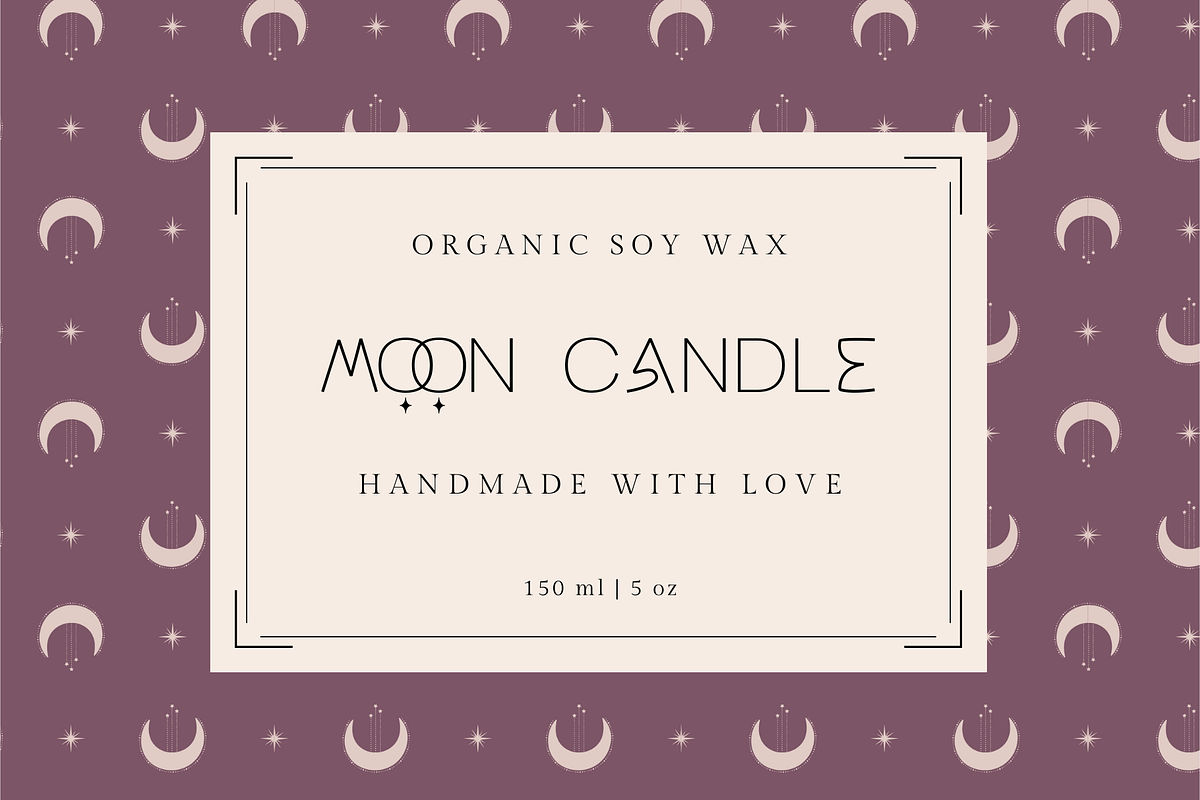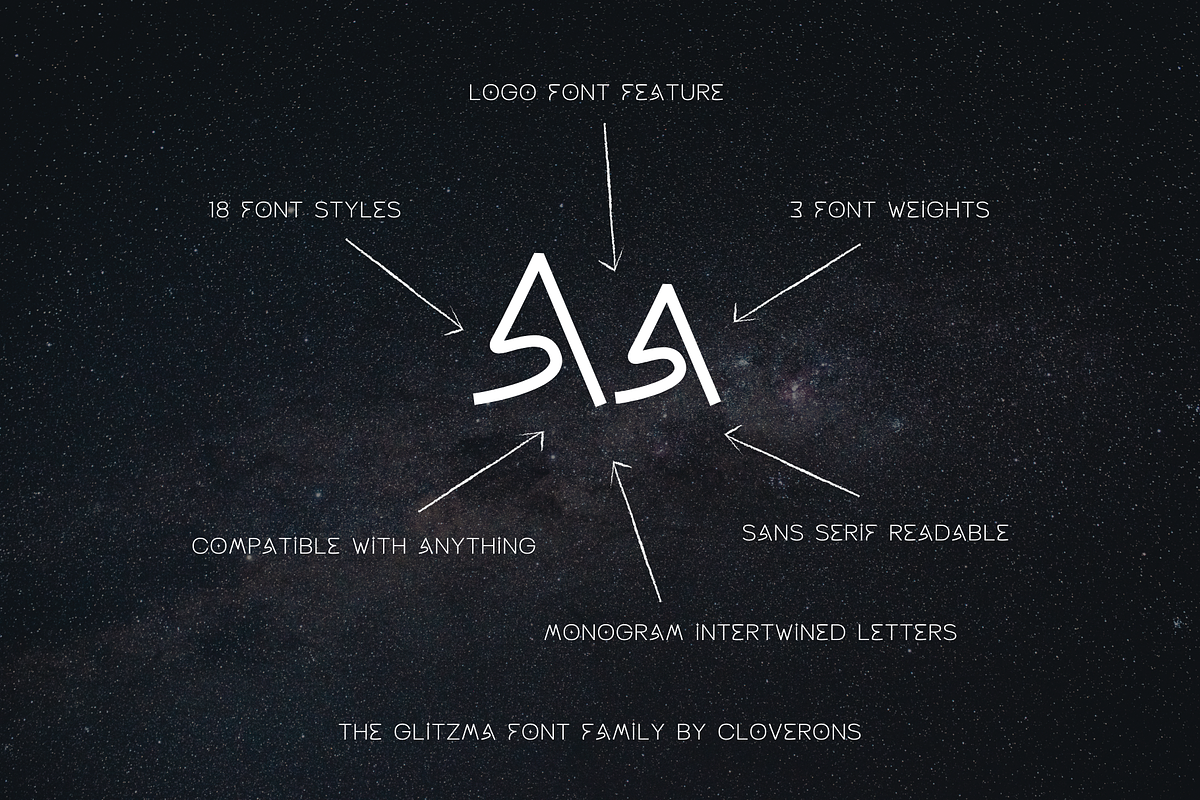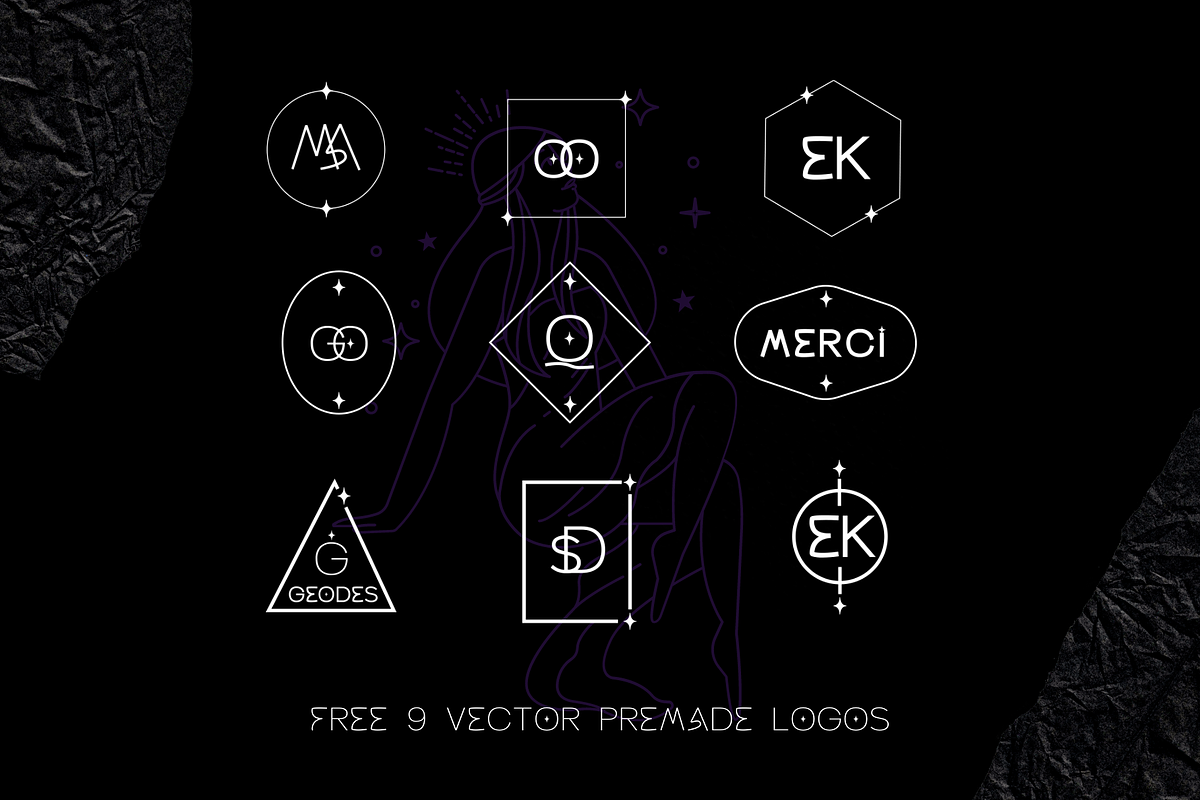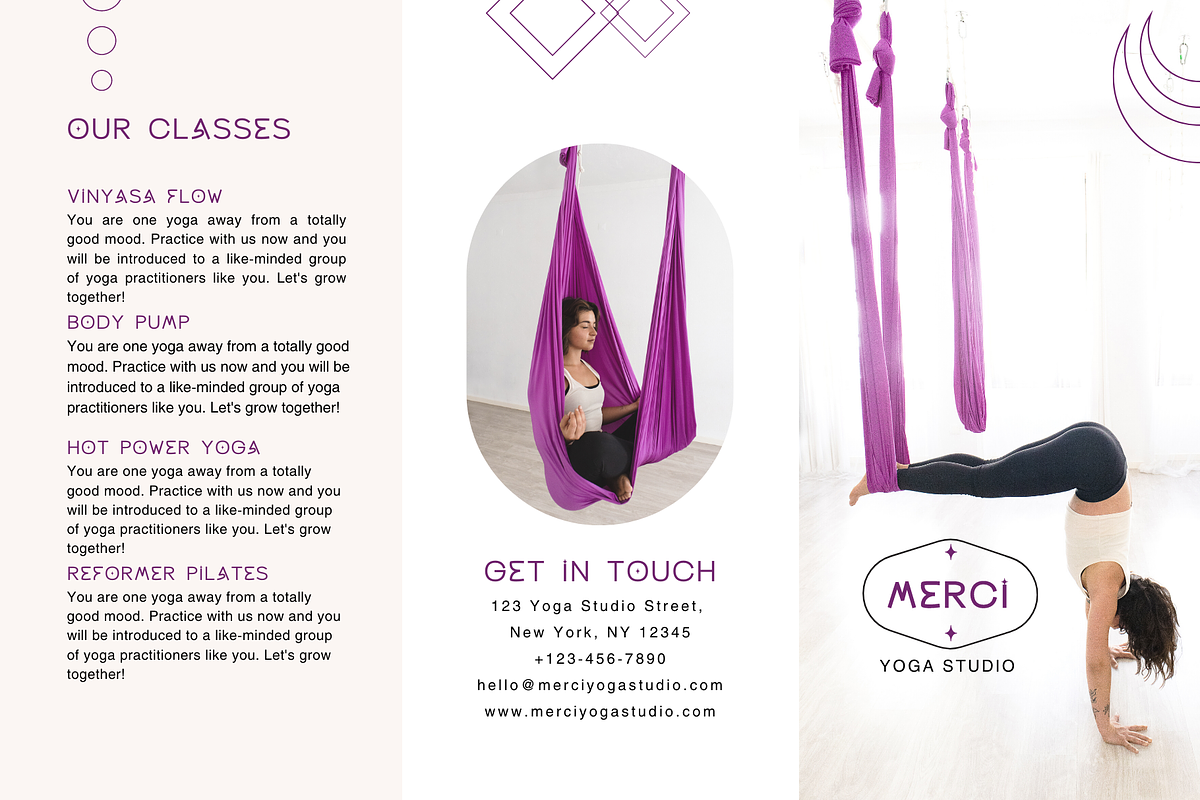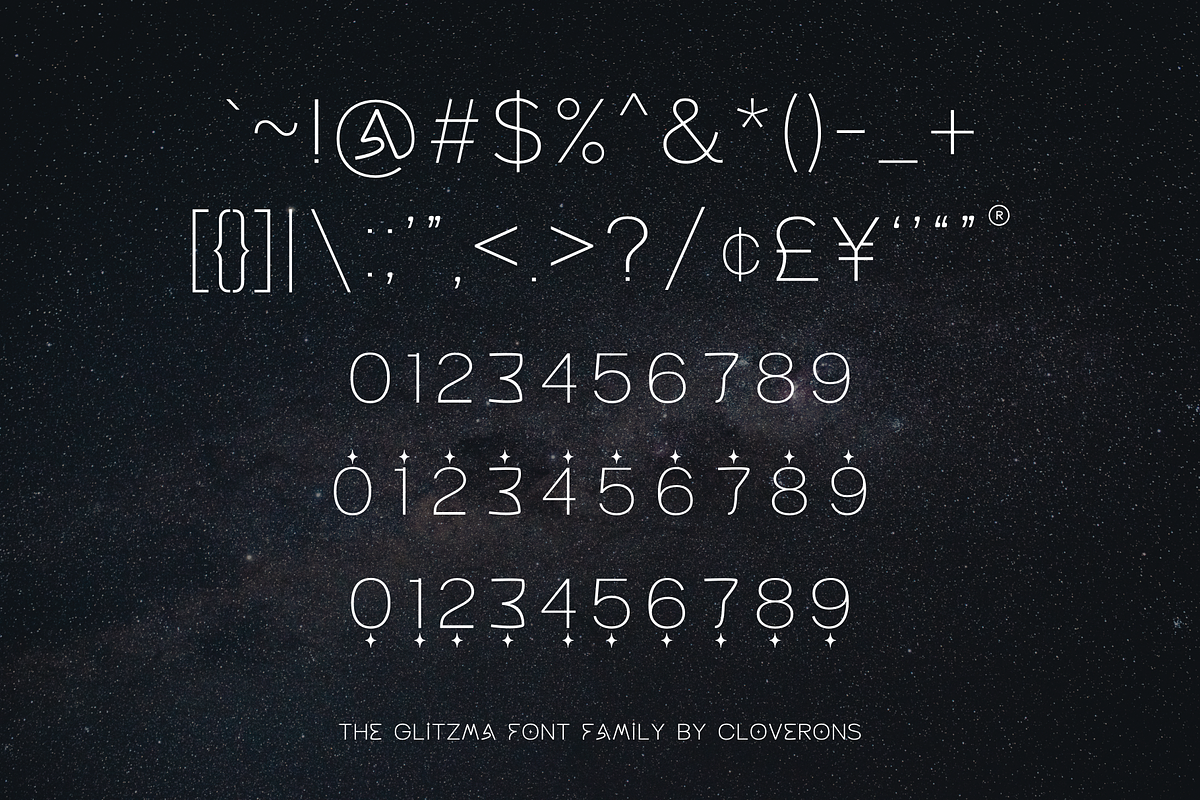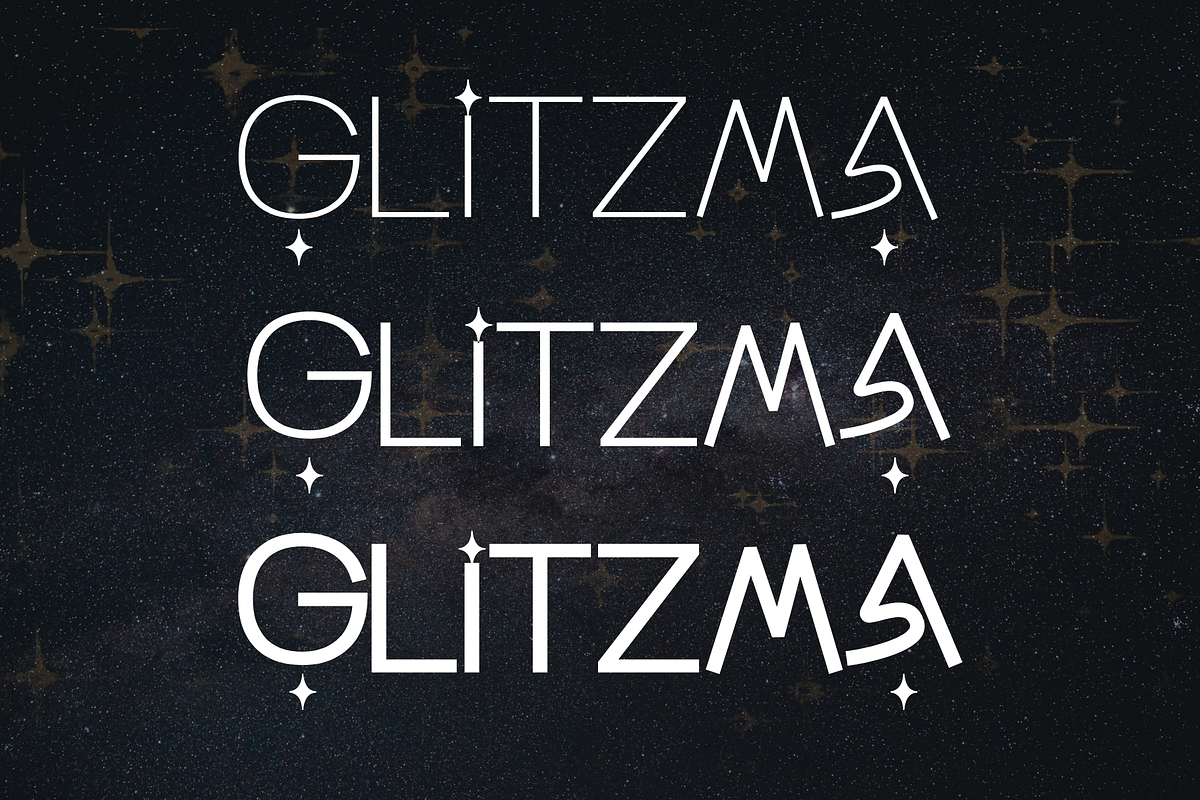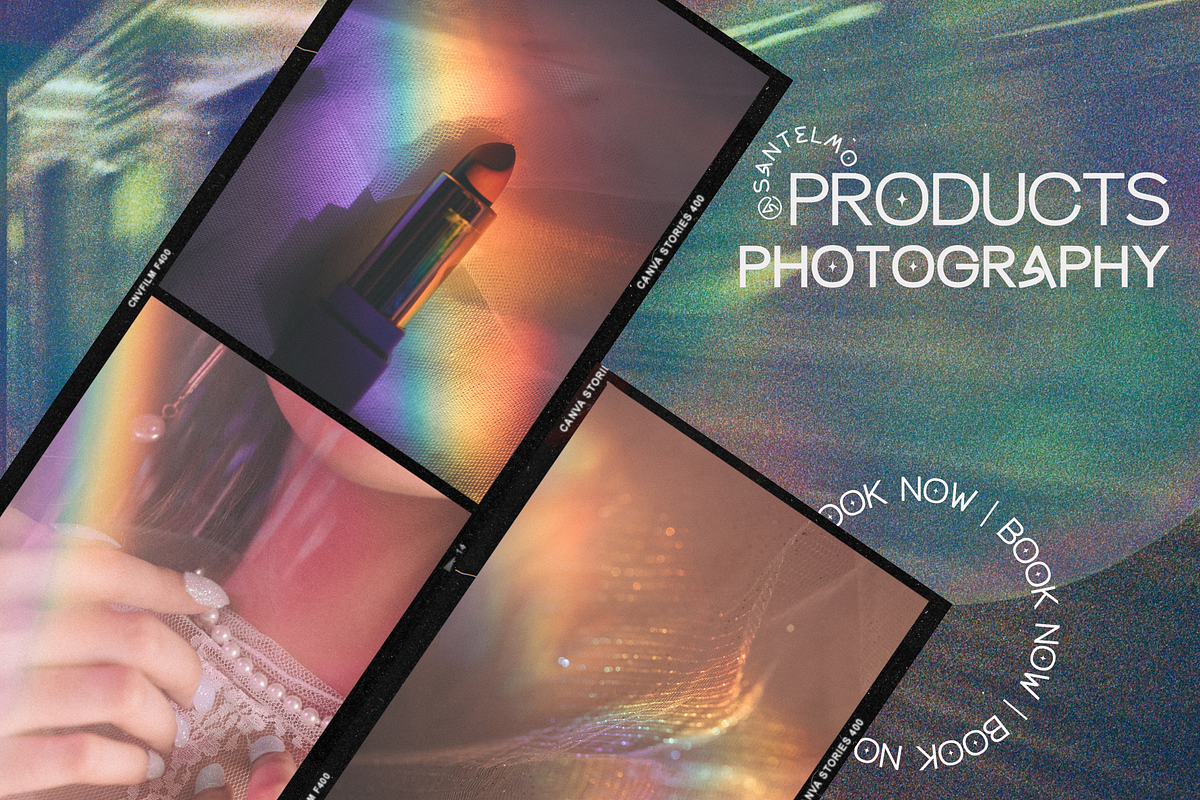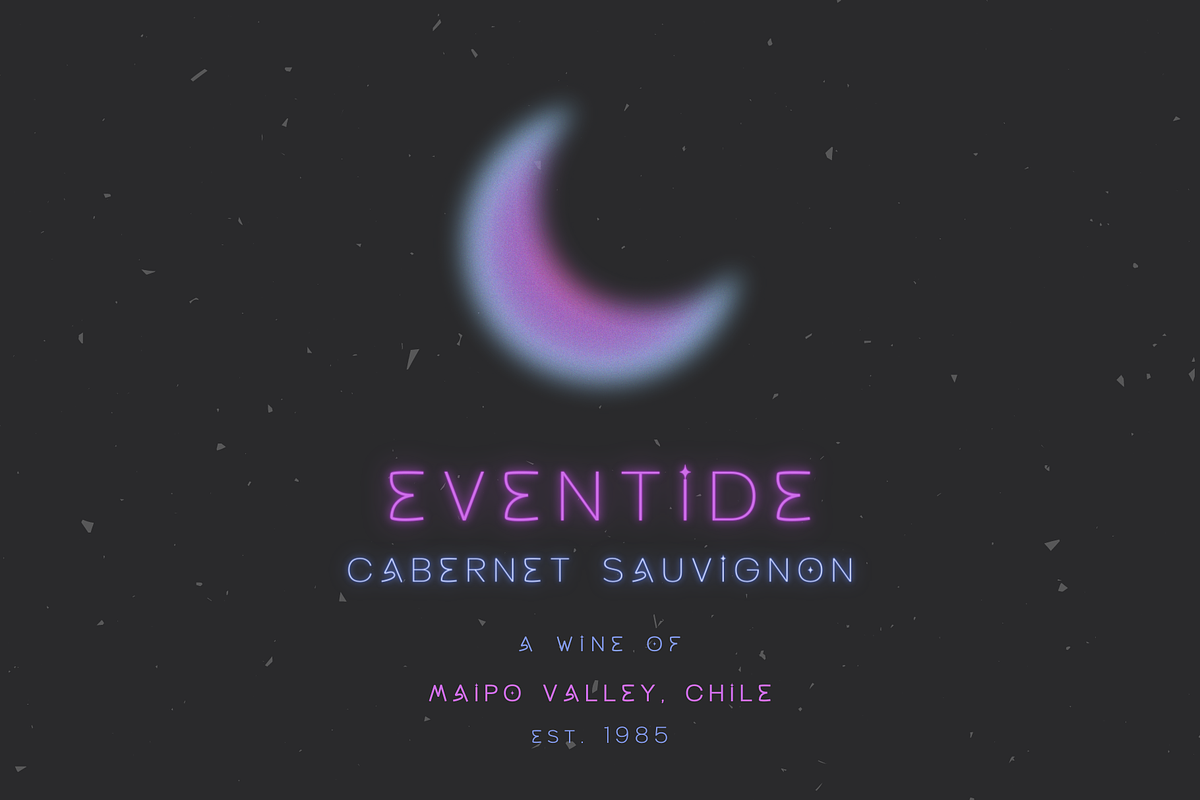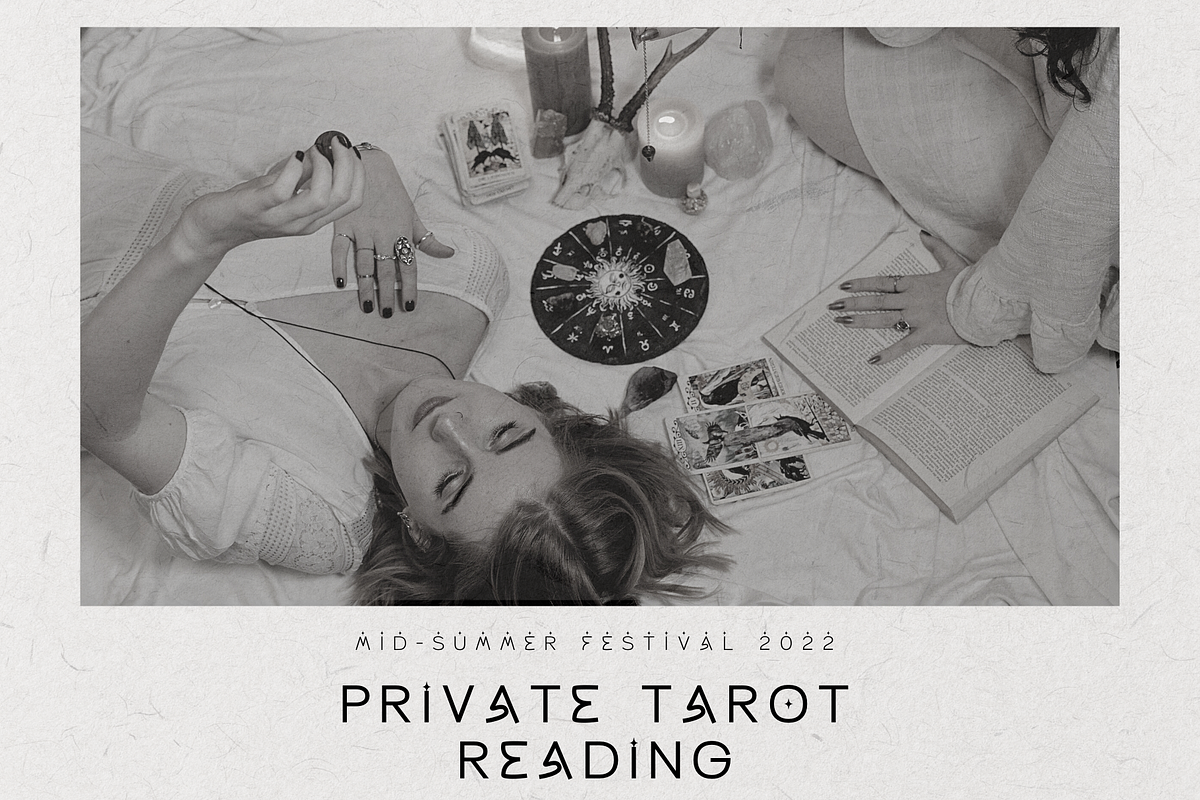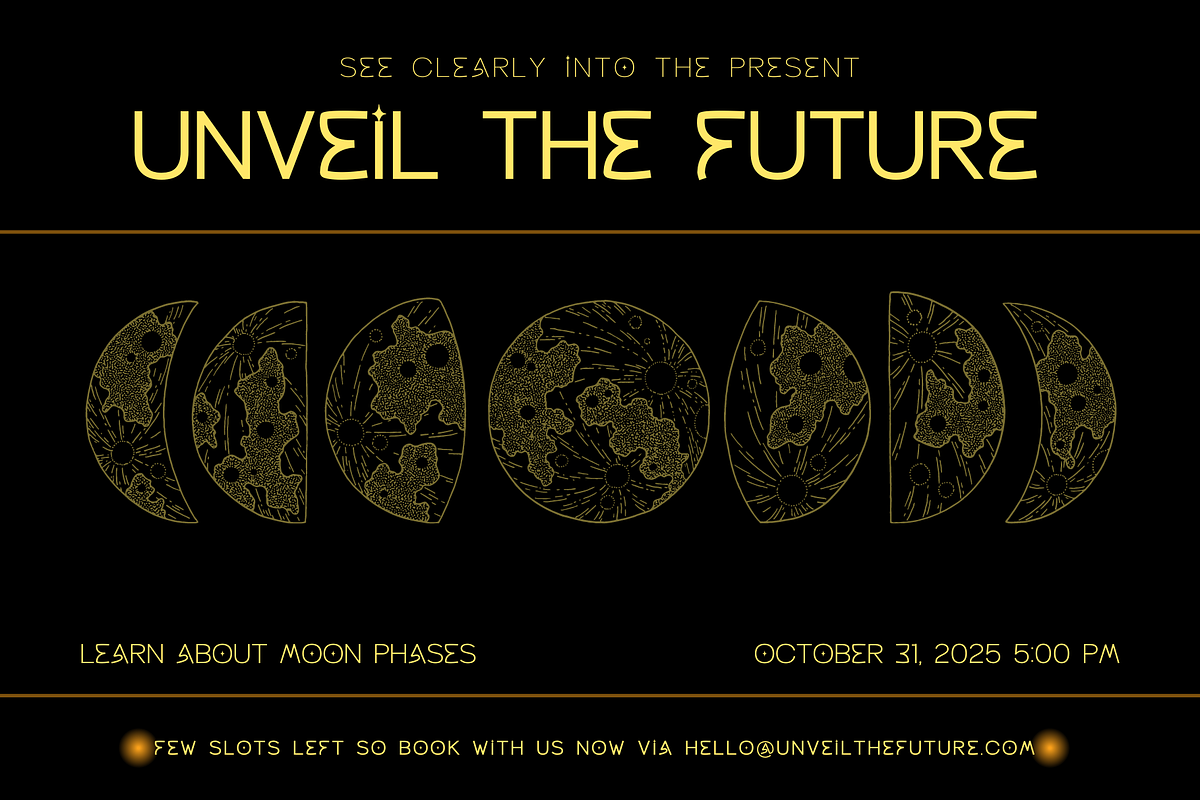
Glitzma Modern Sans Serif Logo Fonts
The Glitzma Sans Serif Family is a modern minimalist font in uniform, monoline style with star diamond sparkle accents. It comes with 3 font weights, 3 font style variations with each of them having overlapping letters so you can instantly create a monogram logo within a few minutes!
Aside from making aesthetic monogram logos, you can also build a brand identity using this font family because having its sans serif nature, it is still readable with smaller letter points. This is really ideal for those in the spiritual, mystical, magical, mindfulness, wellness, and yoga business niches. The sparkles also add somehow feminine energy to this font family so it is also great for lady boss businesses.
✤Product Features✤
- 3 font weights
- thin, regular, bold
- with numbers
- with symbols
- with monograms
- upper & lower caps -- with star diamond sparkles
- 18 font styles